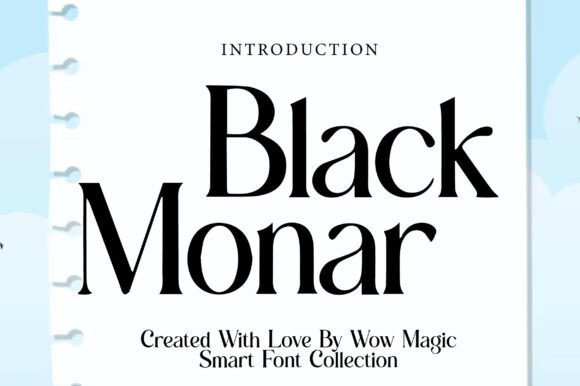
I still remember the countless hours I spent searching for the perfect font for a high-end fashion branding project. My client wanted something that exuded luxury, sophistication, and timeless elegance. I scoured the internet, tried out numerous fonts, but nothing seemed quite right. That was until I stumbled upon Black Monar Font. ✨
With its refined serif design, Black Monar brought an air of confidence and artistry to my project. The font’s elegant curves, sharp serif details, and balanced letterforms created a polished look that felt both classic and modern. I was hooked, and I knew I had to share my discovery with fellow designers, crafters, and creative hobbyists.
An Honest Review of Black Monar Font
- ✨ Elegant Design: Black Monar’s refined serif design makes it perfect for high-end projects that require a touch of luxury.
- ✅ Versatility: This font is suitable for a wide range of applications, from fashion branding and editorial layouts to beauty packaging, logo designs, and wedding stationery.
- 💯 Timeless Sophistication: Black Monar’s classic yet modern design ensures that your typography looks confident, artistic, and memorable.
While Black Monar is an exceptional font, there are a few things to keep in mind: ⚠️
- 🤔 Limited Use in Body Text: Due to its elegant design, Black Monar may not be the best choice for lengthy body text. It’s better suited for headlines, titles, and short paragraphs.
- ⚠️ Glyph Limitations: While Black Monar has a range of OpenType features, some users may find the glyph selection limited compared to other fonts.
- Experiment with OpenType features, such as ligatures and stylistic alternates, to add visual interest to your design.
The Designer Inspiration Behind Black Monar
Black Monar was designed with the intention of creating a font that embodies elegance, sophistication, and refinement. The designer’s inspiration came from classic serif fonts, with a modern twist. The result is a font that feels both timeless and contemporary.
Q: What type of projects is Black Monar best suited for?
A: Black Monar is perfect for high-end projects that require a touch of luxury, such as fashion branding, editorial layouts, beauty packaging, logo designs, and wedding stationery.
Q: Can I use Black Monar for body text?
A: While Black Monar is an elegant font, it’s better suited for headlines, titles, and short paragraphs. For lengthy body text, consider using a more readable font.
Q: Does Black Monar have OpenType features?
A: Yes, Black Monar has a range of OpenType features, including ligatures, stylistic alternates, and glyphs.